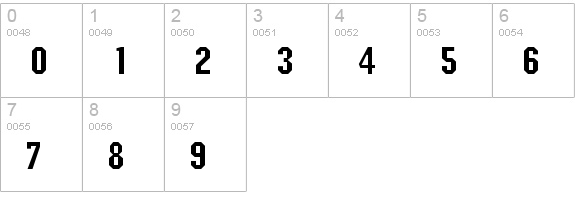
Block Normal Font Details
Block Normal is the standard, neutral variant in the Block typeface family \xE2\x80\x94 well suited to general body text, paragraphs, and standard typographic work.
Block Normal font is a modern and versatile typeface that combines clean lines with a bold presence. With its strong and sturdy appearance, this font is perfect for a wide range of design projects, from logos and headlines to posters and branding materials. The geometric shapes and sharp edges of Block Normal give it a contemporary and stylish look that is sure to make your designs stand out. Whether you're working on a corporate identity, a product packaging, or a website design, Block Normal font will bring a sense of professionalism and sophistication to your work. Its balanced proportions and consistent spacing make it easy to read and visually appealing, ensuring that your message gets across clearly and effectively. Best of all, Block Normal font is available for free download at FontsMarket.com. So go ahead and give your projects a modern and impactful touch with this versatile typeface.